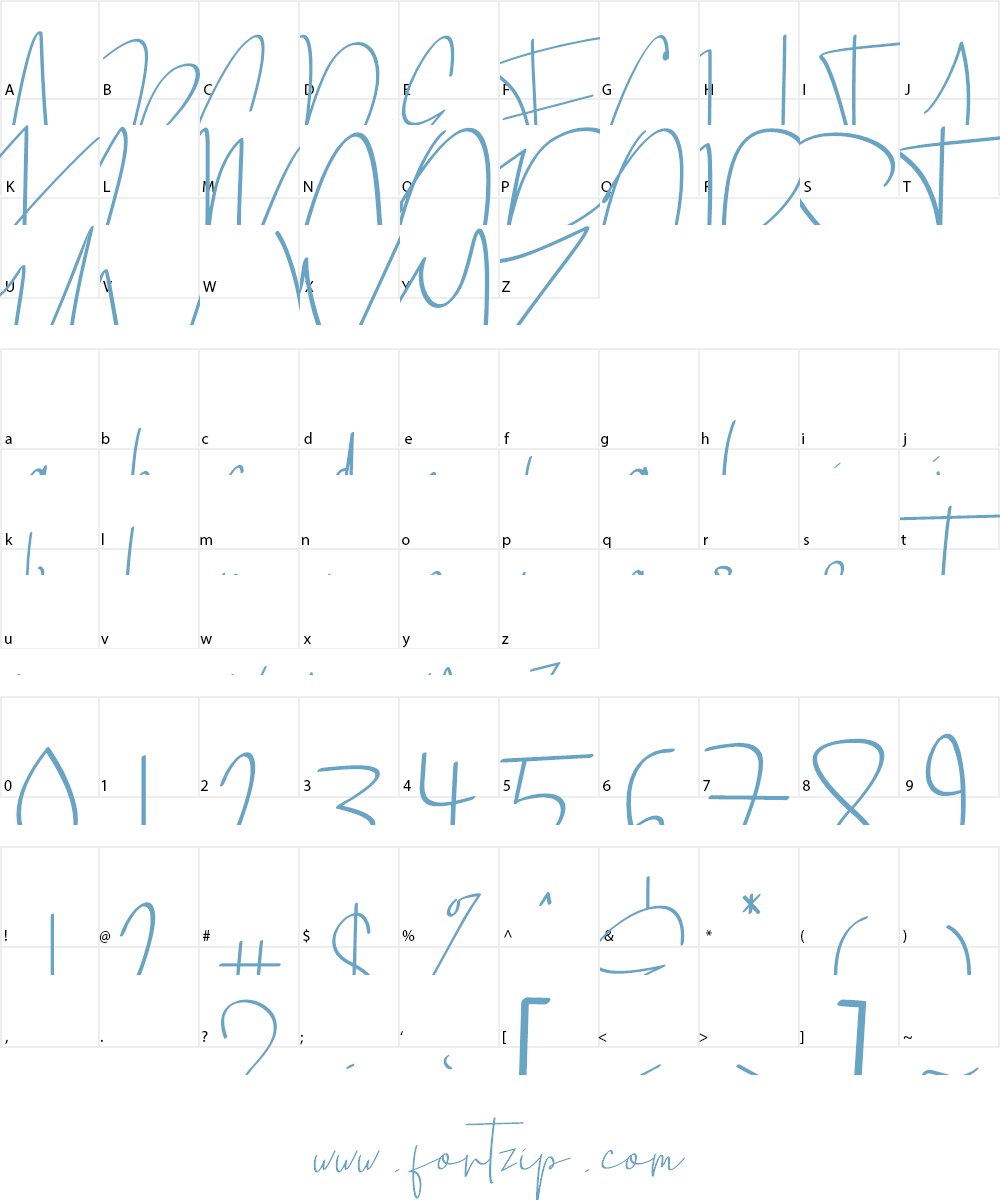
hello everyone introduces my new product that you can download here but if you don't download it in a complete format you will regret it, because i added 90 ligature in this font
This font is very suitable for your needs such as products, magazines, logos, etc.